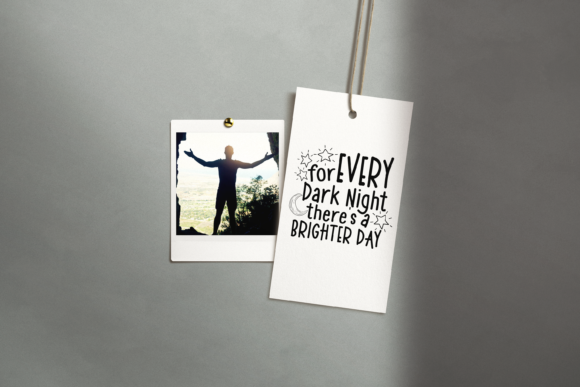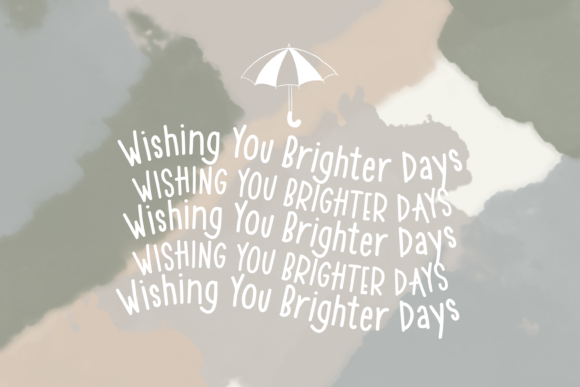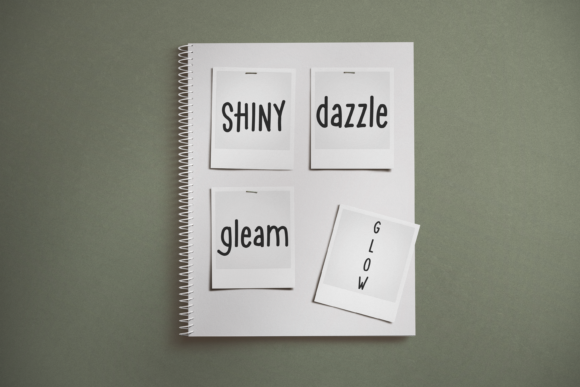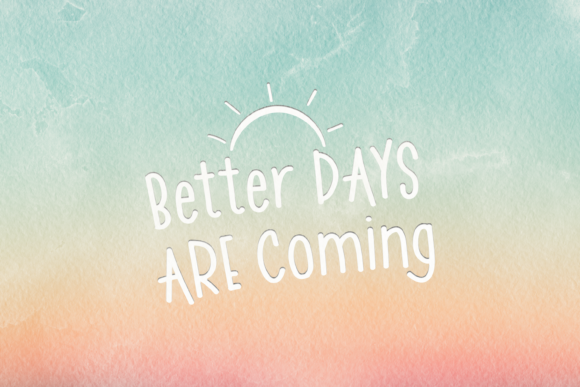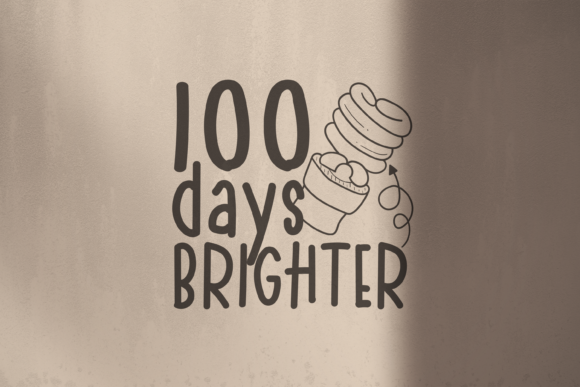
About Brighter Day Font
Introducing “Brighter Day,” a casual and adaptable handwritten font that exudes a playful and vibrant energy. This font is designed to inspire and uplift, making it the perfect choice for turning any design project into a standout.
“Brighter Day” brings a refreshing and carefree feel to your designs. With its casual and handwritten style, it adds a touch of authenticity and spontaneity. Whether you’re creating greeting cards, posters, social media graphics, or any other design project, this font injects a sense of joy and optimism.
The playful nature of “Brighter Day” allows you to explore a wide range of creative possibilities. Its organic and fluid strokes give your designs a lively and dynamic appearance. Whether you’re aiming for a fun and whimsical look or a more laid-back and casual vibe, this font adapts effortlessly to your vision.
The adaptability of “Brighter Day” makes it suitable for various design applications. From branding and packaging to advertising and digital content, this font adds a touch of personality and charm. Its versatility allows it to shine in both personal and commercial projects, capturing the attention of your audience.
When used in branding and marketing materials, “Brighter Day” creates a memorable and approachable impression. Its playful feel and handwritten charm resonate with customers, leaving a positive and lasting impact. Whether you’re designing a logo, a tagline, or promotional materials, this font adds a friendly touch that connects with your target audience.
In digital media, “Brighter Day” brings life and vibrancy to your social media graphics, blog posts, and website designs. Its playful and adaptable nature encourages engagement and interaction. Whether you’re sharing inspirational quotes, announcing special promotions, or showcasing your creative work, this font adds a touch of excitement and positivity.
One of the key strengths of “Brighter Day” is its ability to evoke a sense of joy and uplift the mood of your designs. It brings a sense of optimism and enthusiasm, making it perfect for projects that aim to inspire and spread positivity. Whether you’re creating motivational posters, cheerful illustrations, or heartfelt messages, this font adds a bright and infectious energy.
Unleash your creativity and let “Brighter Day” inspire you to create standout designs. Its casual and adaptable nature allows you to experiment and explore new ideas. Embrace the playful feel and watch as your designs come to life, radiating joy and capturing the hearts of your audience.
With “Brighter Day,” every day can be filled with sunshine and positivity. Let this font be your creative companion, guiding you towards designs that make a lasting impact. Embrace the playful and adaptable spirit of “Brighter Day” and watch as it transforms your projects into vibrant works of art.